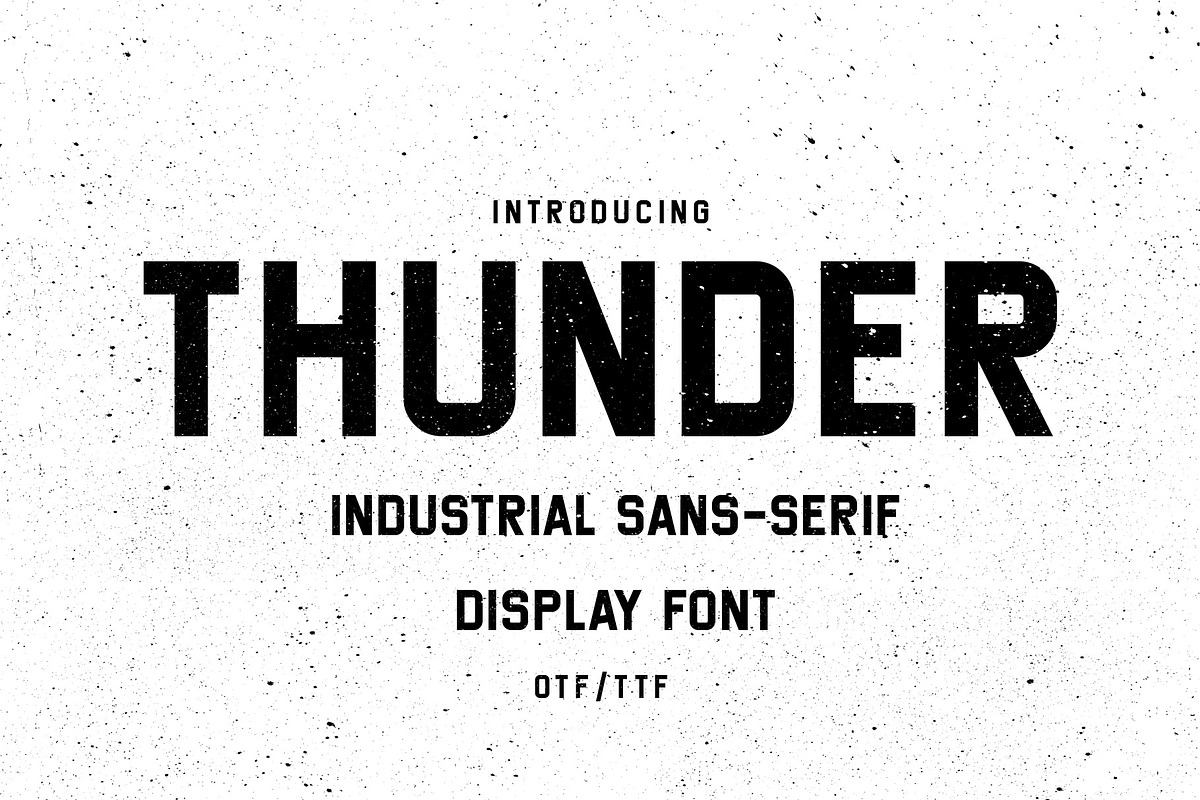
Make a bold, modern statement with Thunder – Industrial Typeface Free Download. This strong, angular typeface draws inspiration from industrial design and modern architecture, offering a powerful and striking look perfect for logos, branding, product packaging, posters, and any design that demands attention.
Thunder features sharp, geometric forms and clean, bold lines, making it ideal for high-impact headlines and digital designs. It includes uppercase and lowercase characters, numerals, punctuation, and special stylistic alternates—allowing you to test out dynamic, contemporary layouts with ease.